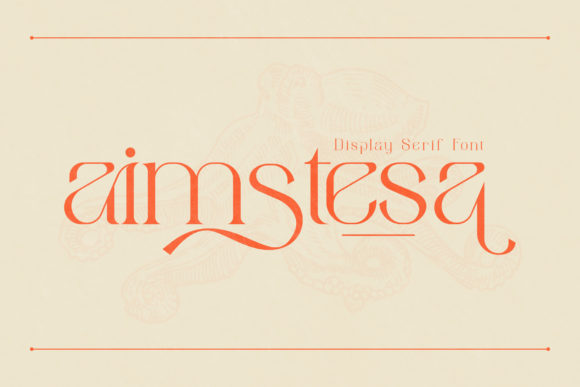
The Elusive Font: A Designer’s Love Affair with Aimstesa
I still remember the frustration of working on a luxury brand logo project, searching for the perfect serif font that exuded elegance and sophistication. My client wanted a classic yet modern feel, and I was determined to deliver. After hours of scouring font libraries, I stumbled upon Aimstesa – a game-changer in the world of typography. In this article, I’ll share my experience with this stunning font, its features, and how to make the most of it in your designs.
Aimstesa: A Modern Classic
Aimstesa is a modern and classic serif font that boasts its own unique style and beautiful characters. This typeface is perfect for creating elegant and luxurious logos, book or movie title designs, fashion brand identities, magazines, clothing labels, lettering, quotes, and so much more. Its versatility and aesthetic appeal make it an excellent addition to any designer’s toolkit.
What I Love About Aimstesa ✨
- ✅ Elegant and sophisticated design, perfect for luxury brands
- ✅ Wide range of characters and glyphs, including OpenType features
- ✅ Works well for both digital and print applications
- ⚠️ Some users may find the font too ornate for certain projects
- ⚠️ Limited availability of condensed or extended versions
The Story Behind Aimstesa
Aimstesa was designed with the intention of creating a modern classic serif font that would cater to the needs of luxury brands and designers. The designer aimed to craft a font that was both elegant and sophisticated, while also being versatile and highly legible. Through a combination of traditional techniques and modern technology, Aimstesa was born – a font that is sure to make a statement in any design.
Q: What is Aimstesa best used for?
A: Aimstesa is best used for luxury brand logos, book or movie titles, fashion brand identities, magazines, clothing labels, lettering, and quotes.
Q: Is Aimstesa suitable for body text?
A: Yes, Aimstesa is highly legible and can be used for body text, but it may be more effective as a display font for headlines and titles.